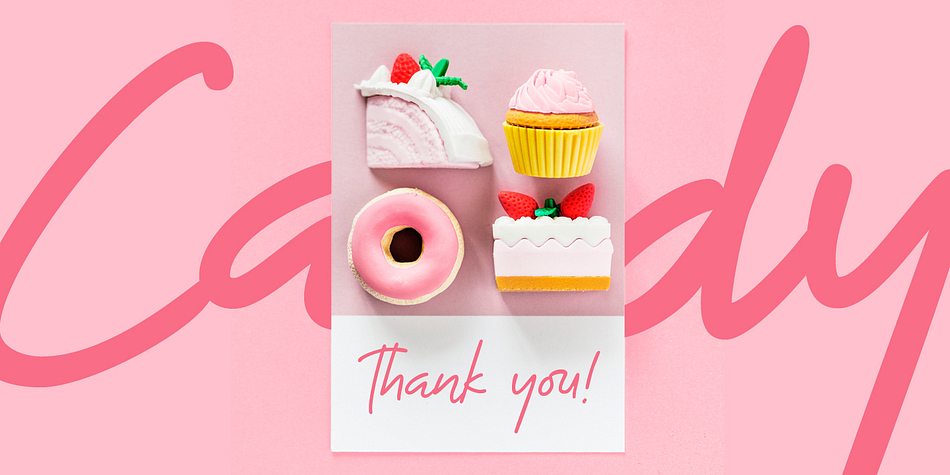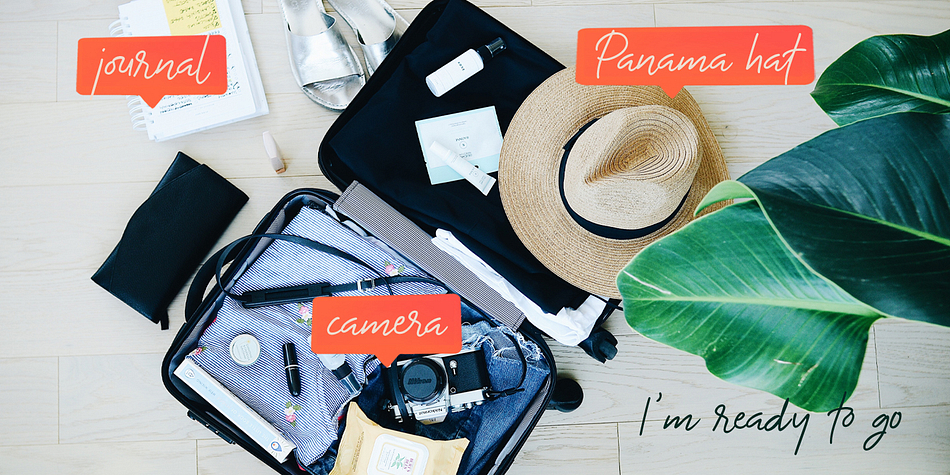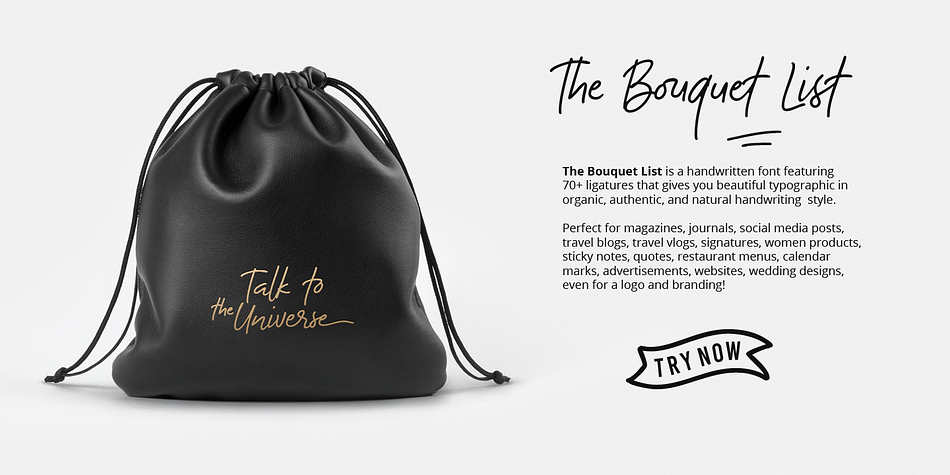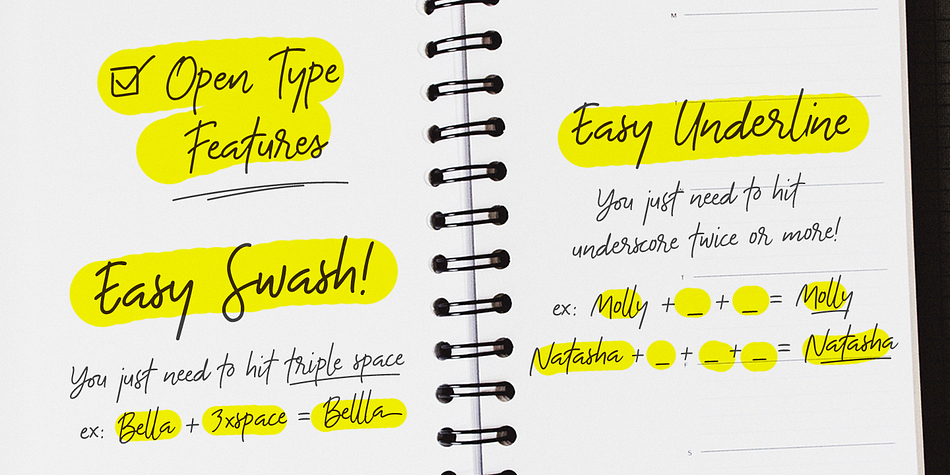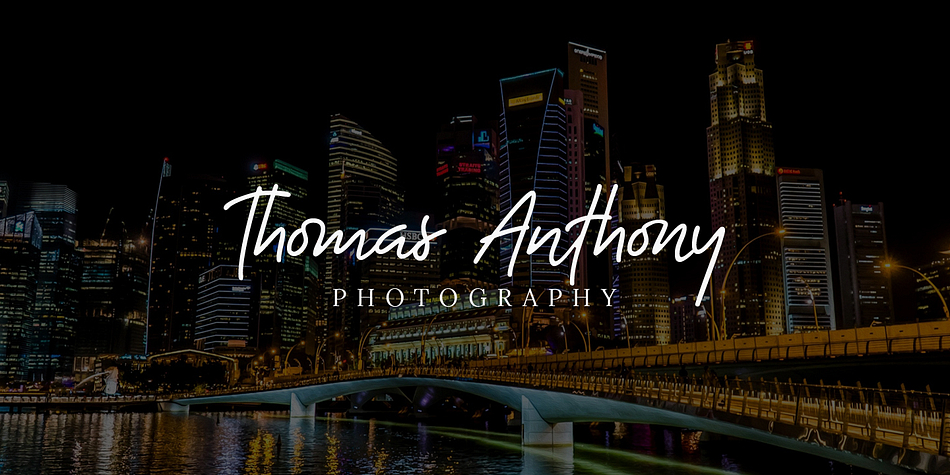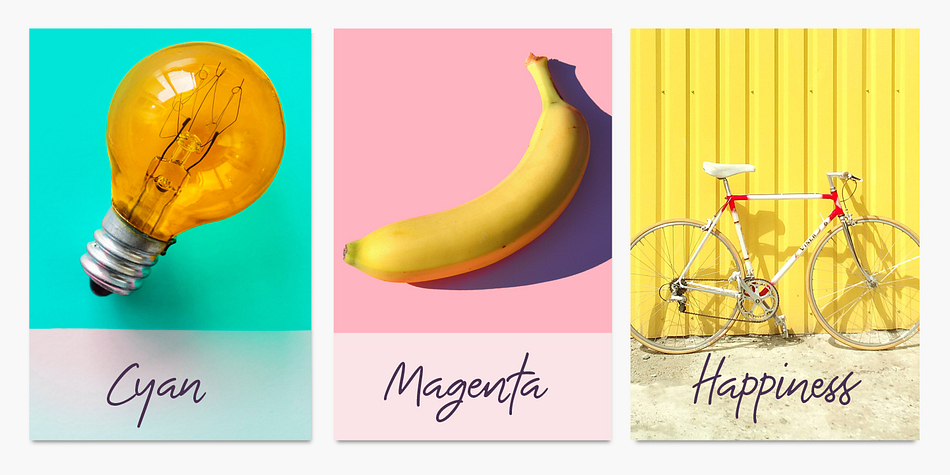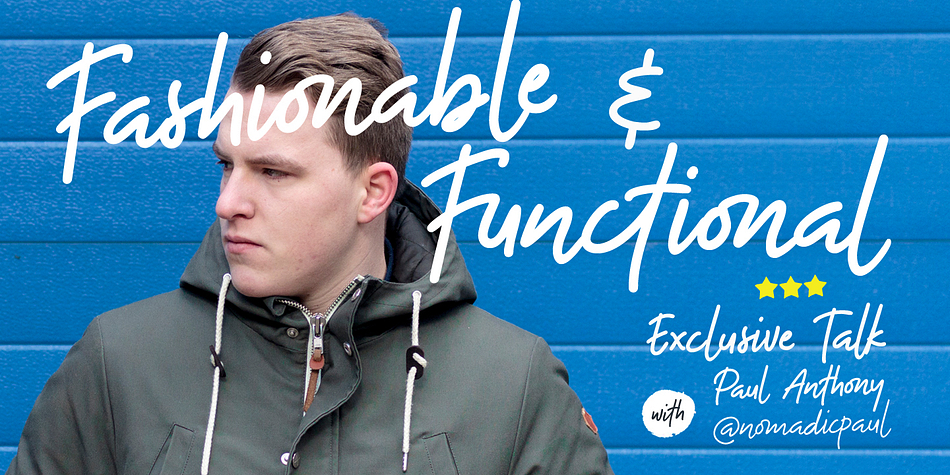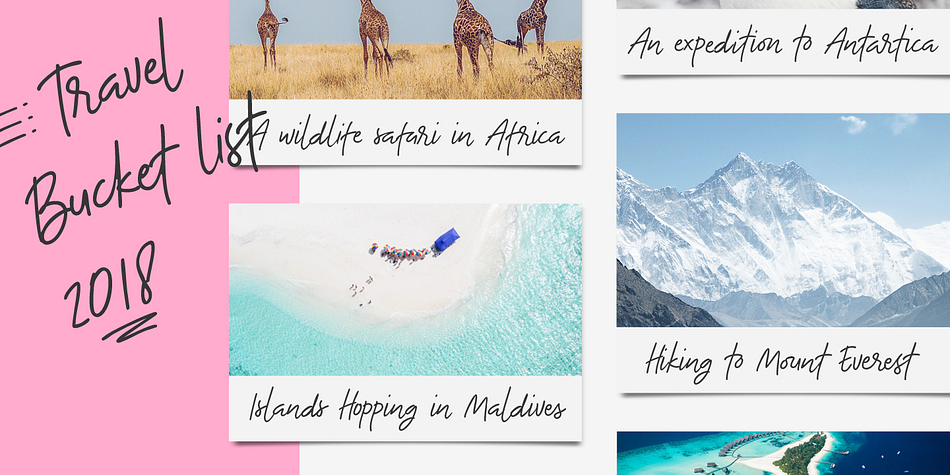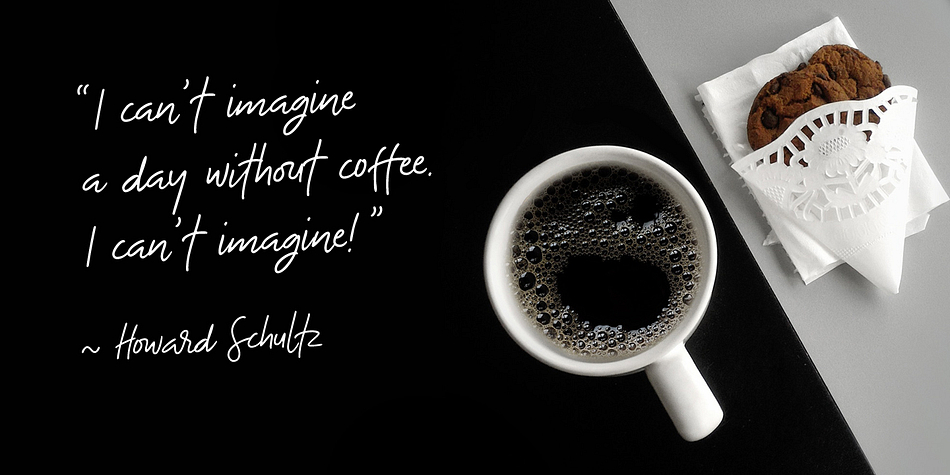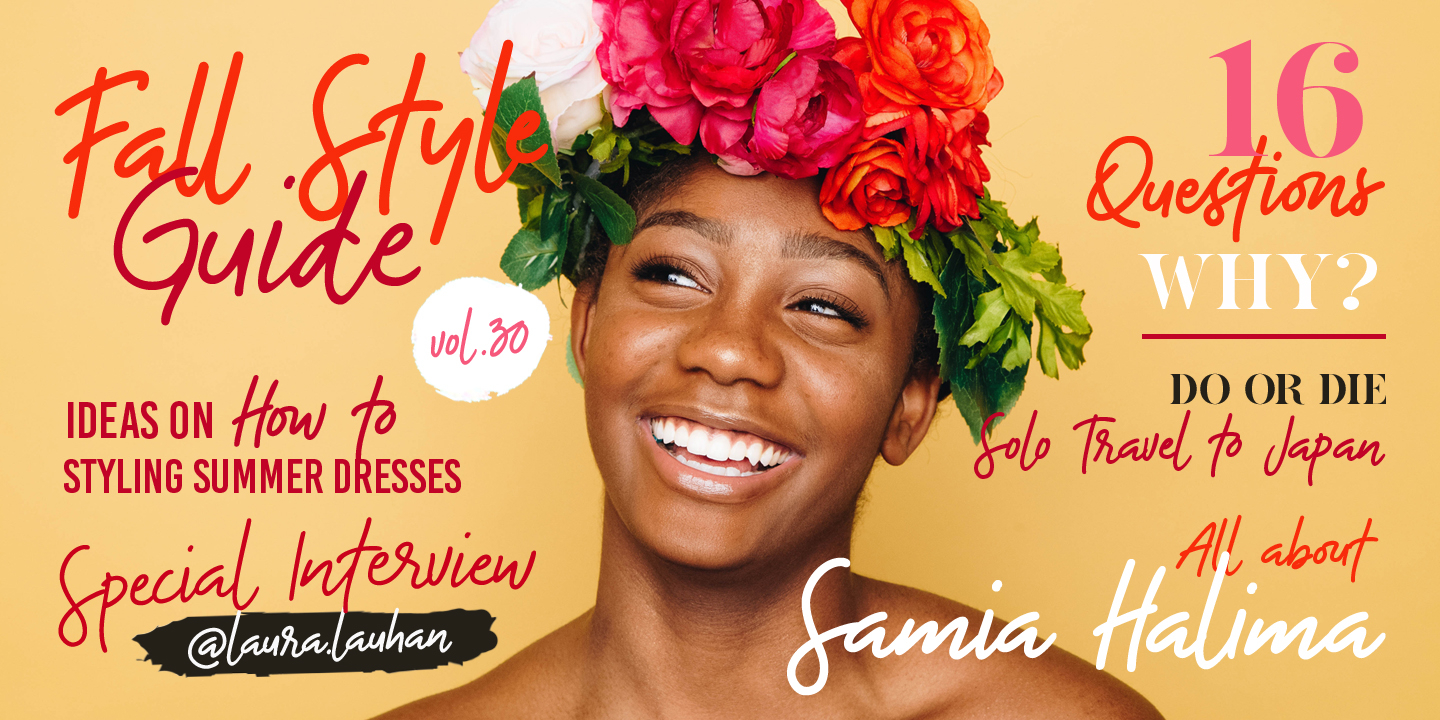
Designed by Nasir Udin, The Bouquet list is a hand drawn, script and dingbat font family. This typeface has three styles and was published by Nasir Udin.
Introducing the Bouquet List - an ultimate handwriting script font. Inspired by the beauty of flower bouquet and the aesthetic of handwriting when you write some bucket list or itinerary on your journal while you do travel.
The Bouquet List is a handwritten font featuring 70+ ligatures that gives you beautiful typographic in organic, authentic, and natural handwriting style. Perfect for magazines, social media posts, travel blog, travel vlog, signatures, sticky notes, journal, quotes, restaurant menus, websites, women products, calendar marks, book covers, advertisements, wedding designs, even for a logo and branding!
Its OpenType Features provides you an easy swash and magic underline (please see the instruction in the last two preview images). It’s also has built-in PUA Encoded.
How to add swash easily: type space three times after the word.
How to add underline: type underscore 2 or 3 or 4 times.
This font has these following ligatures: 00 30 50 Cr Ch Fi Fo Fu bb cc dd ff ll mm nn rr ss at et ft tt att nt ar br cr dr er ir lr mr nr arr err irr tir om on oo ou ov ow ti to tz fz sz zz ck fa en do li es ess est ism ist ed id lk is it sa tis ct fi fl st ou.swash nt.swash on.swash st.swash